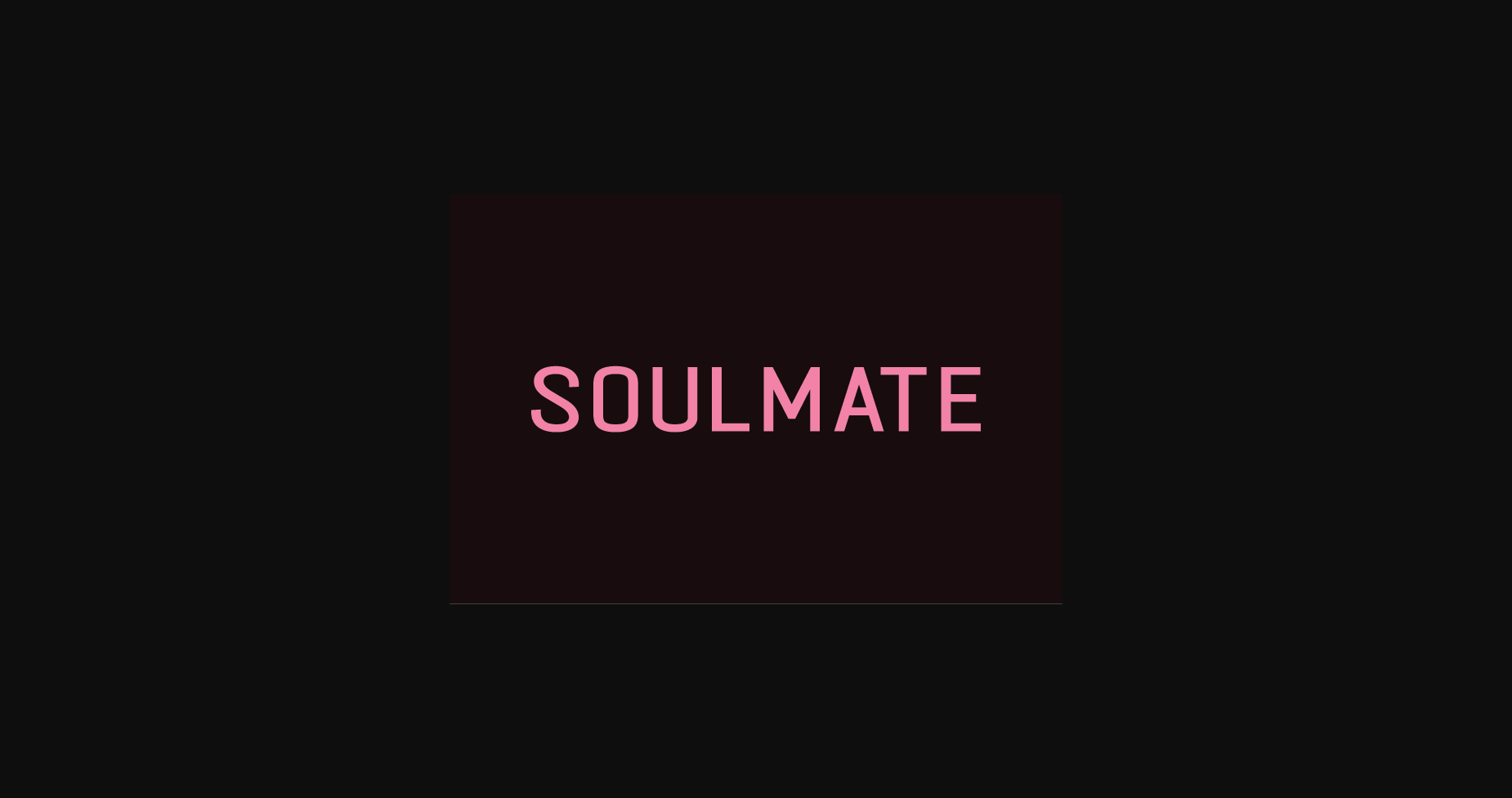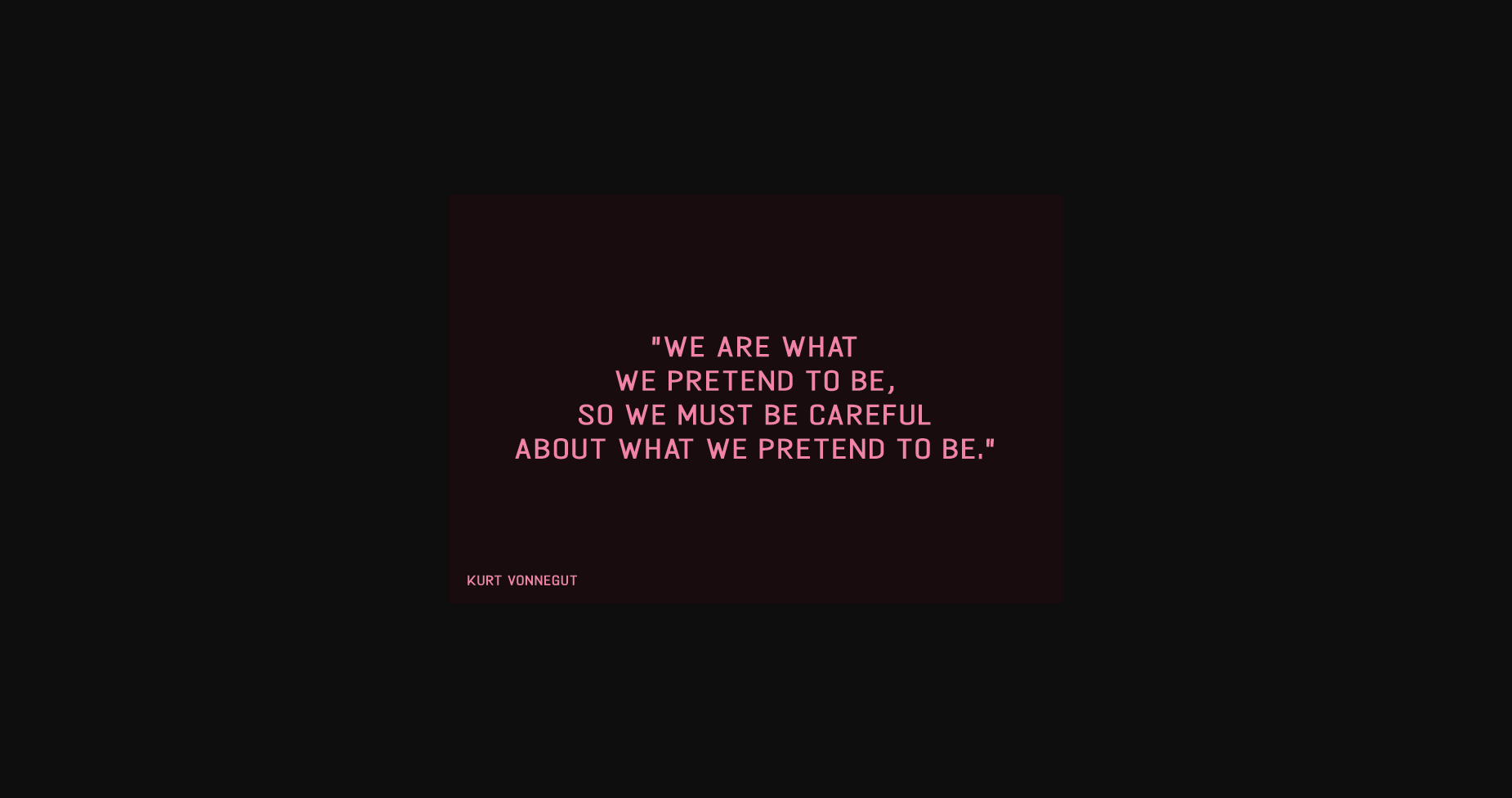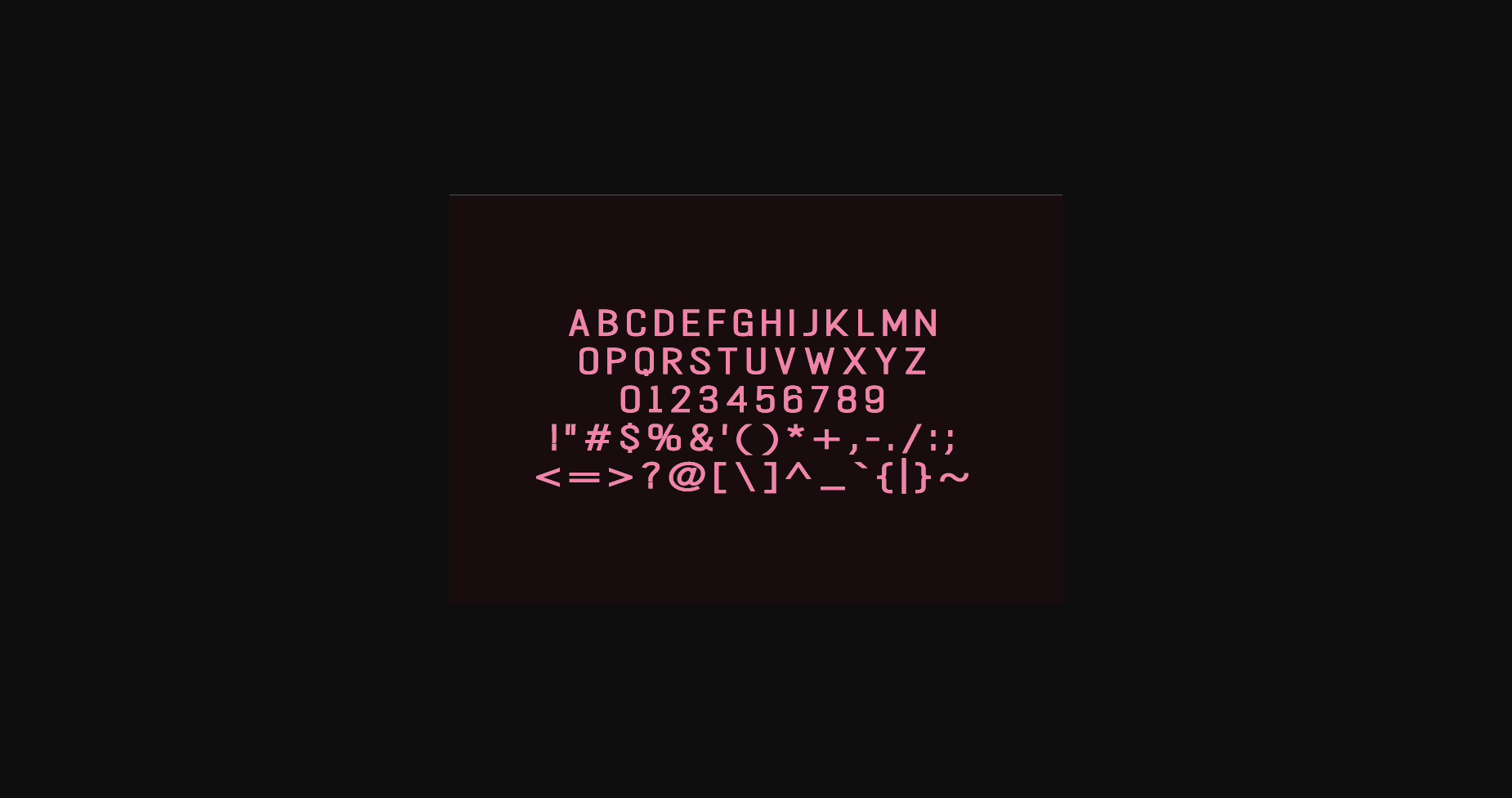
About Soulmate Font
Introducing Soulmate, a modern, classy sans serif typeface.
An extremely versatile font, perfect for logos, weddings, invitations, quotes, advertisements, print, magazines, and more!